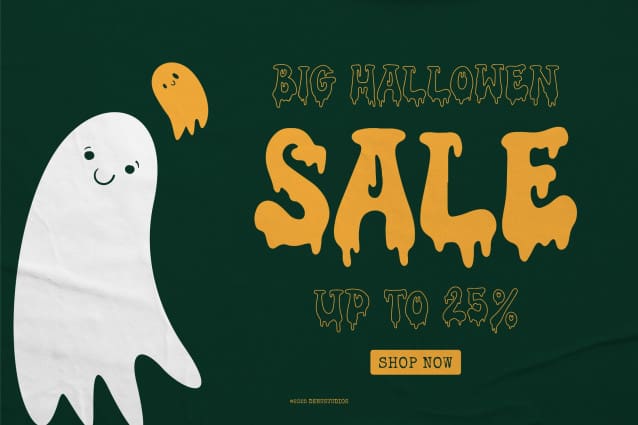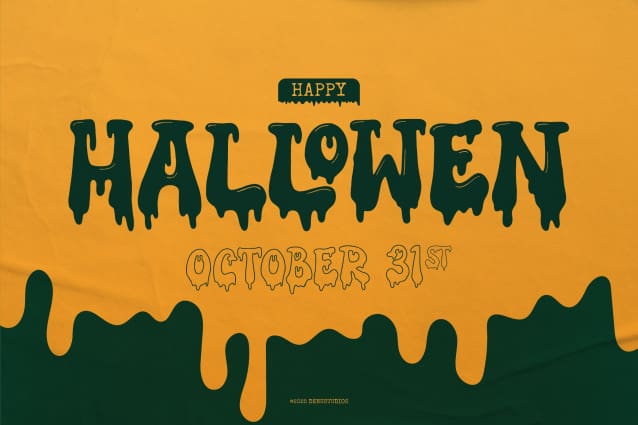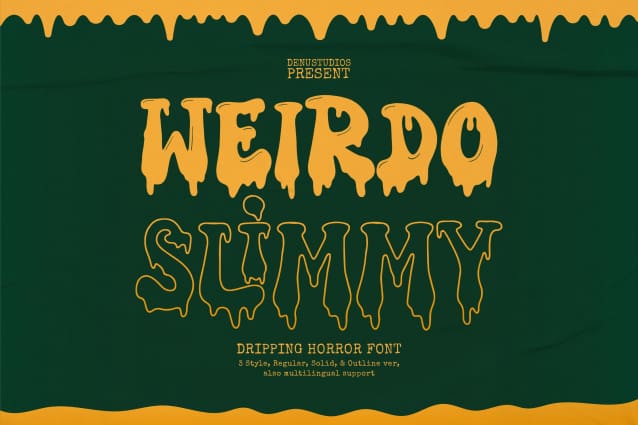
Weirdo Slimmy Font
Weirdo Slimmy | Dripping Horror Font, from Denustudios, suitable for any projects such as: logos, branding projects, homeware designs, product packaging, mugs, quotes, posters, shopping bags, t-shirts, book covers, name card, invitation cards, greeting cards, label, photography, watermark, special events, and all your other lovely projects that need a Dripping Horror Font taste.